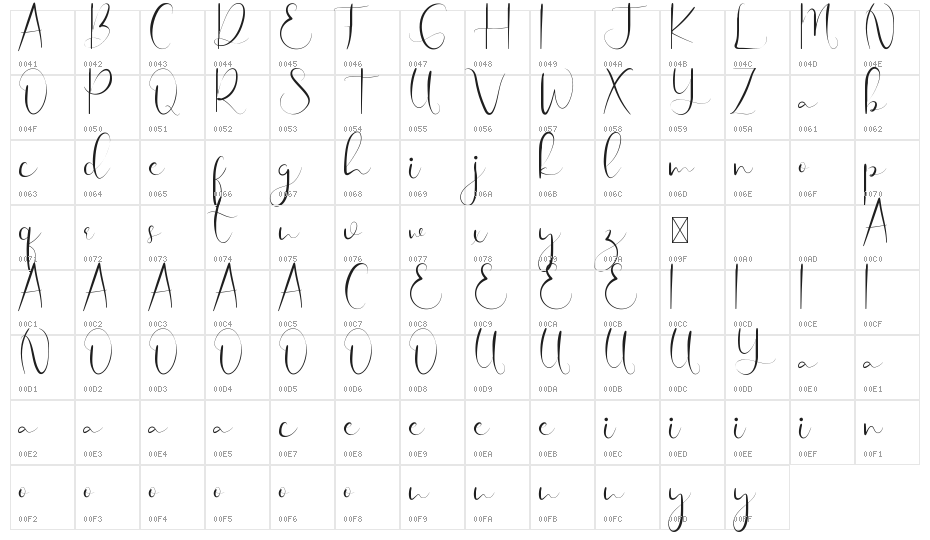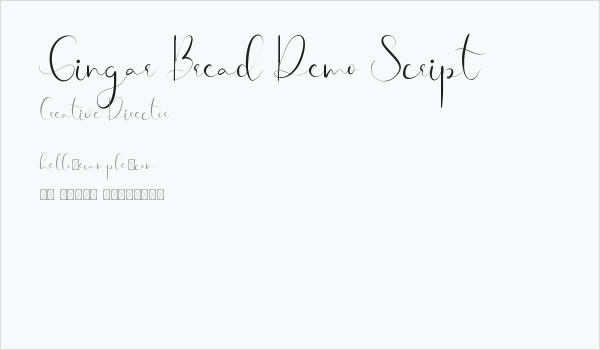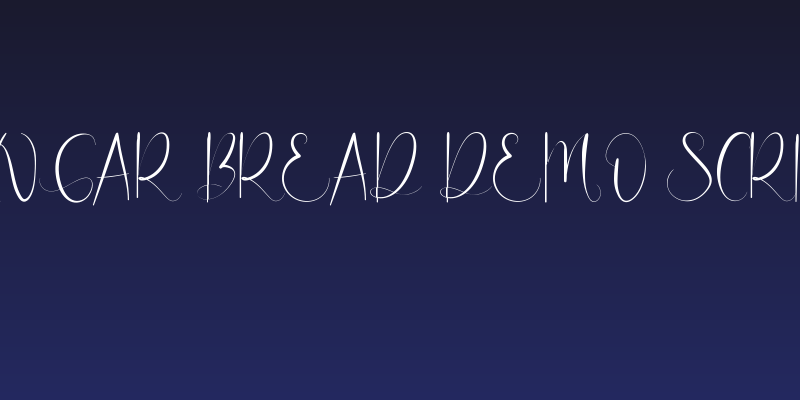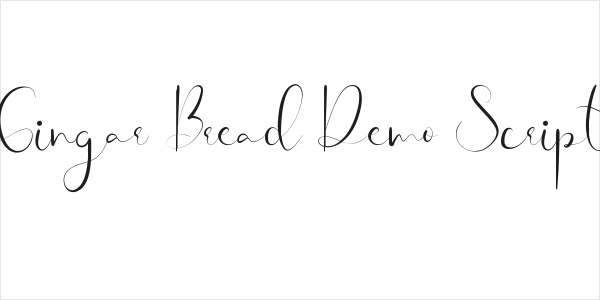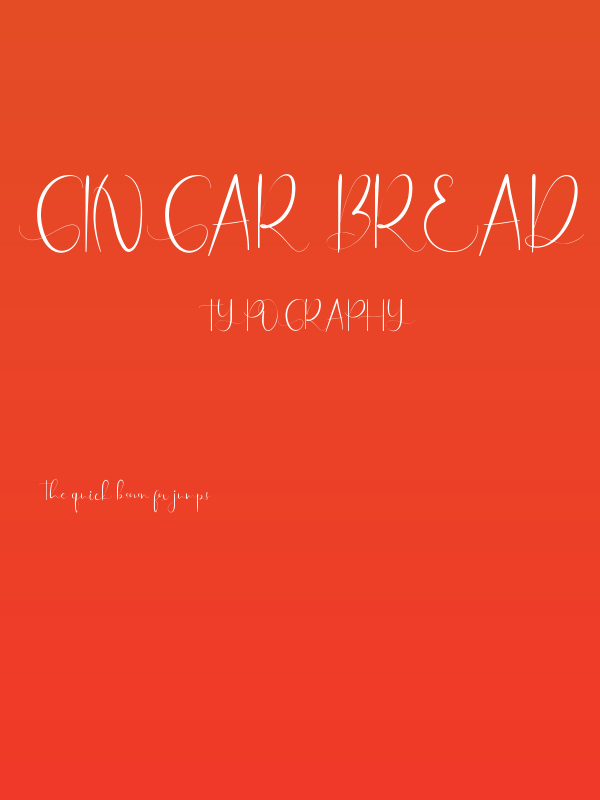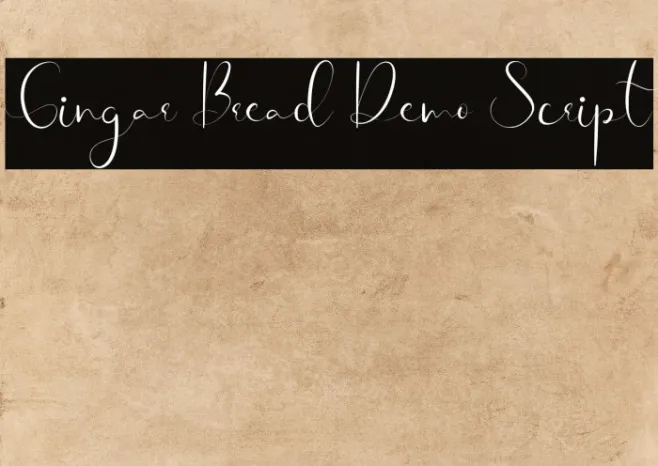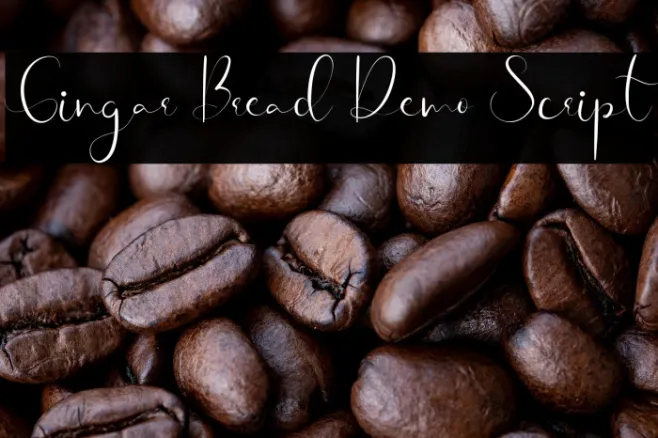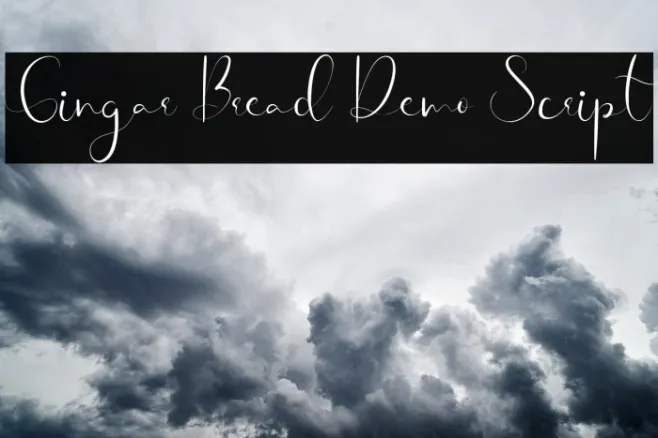
Gingar Bread Demo Script Font
Gingar Bread Demo Script Description
This elegant script font features a flowing, cursive style with delicate, elongated strokes and graceful loops. The characters are interconnected, creating a seamless and fluid appearance. The uppercase letters are tall and slender, while the lowercase letters maintain a consistent height, adding to the font's refined and sophisticated look. The overall design is airy and light, with a whimsical touch that makes it suitable for creative and artistic projects. The font's intricate details and smooth curves give it a unique charm, perfect for adding a personal and stylish flair to any design.
| Proposed Projects | Ideal for wedding invitations, greeting cards, branding, and decorative projects. |